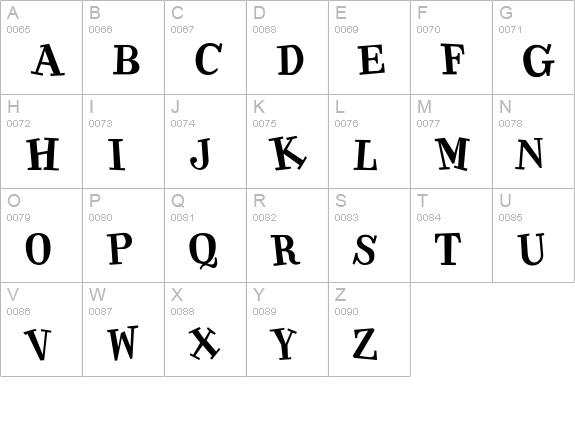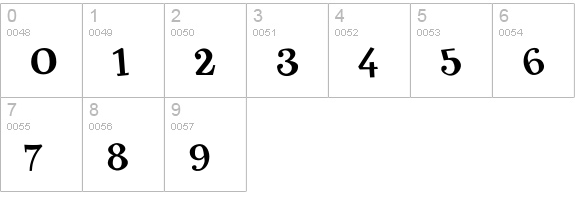
BolbodySemibold Font Details
BolbodySemibold font is a versatile and modern typeface that strikes the perfect balance between boldness and elegance. With its strong and commanding presence, this font is ideal for headlines, titles, and branding projects that require a touch of sophistication. Featuring a unique blend of sharp angles and soft curves, BolbodySemibold exudes a sense of authority and style that will make your designs stand out from the crowd. Whether you're crafting a logo, poster, or website, this font will add a touch of class and professionalism to your work. Best of all, BolbodySemibold is available for free download at FontsMarket.com, making it accessible to designers of all skill levels. So go ahead and give your projects a bold and stylish upgrade with BolbodySemibold font today!